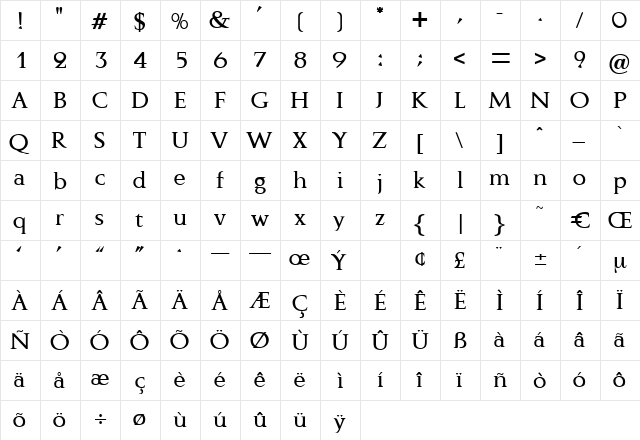
RamonaMedium Regular
Design Context for RamonaMedium Typeface
RamonaMedium takes a measured approach to typography — its balanced proportions and neutral character make it a reliable workhorse for both digital and print work.